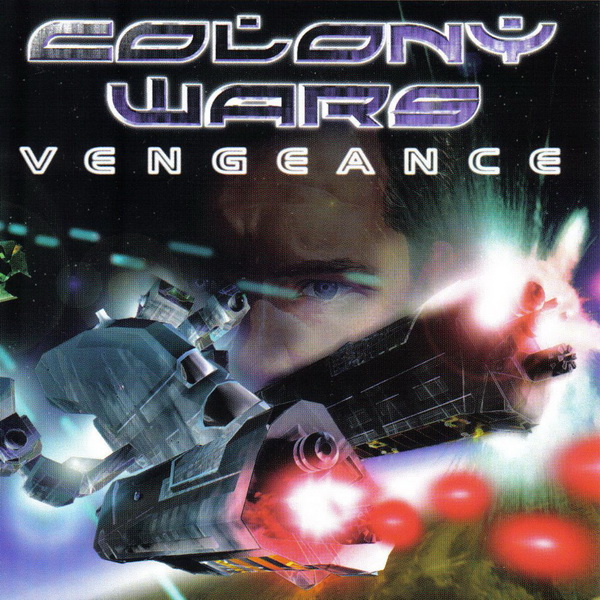
Fonts in UseColony Wars is a space combat simulation game developed by Psygnosis. Set in the distant future, it follows the player's journey as a pilot navigating the conflicts between the Earth Empire and the rebellious League of Free Worlds.
The video game's title lettering resembles the Colony Wars font, created by Neale Davidson. This free font, available in uppercase letters and some punctuation marks, can be downloaded for free from the Fonts Used Section.